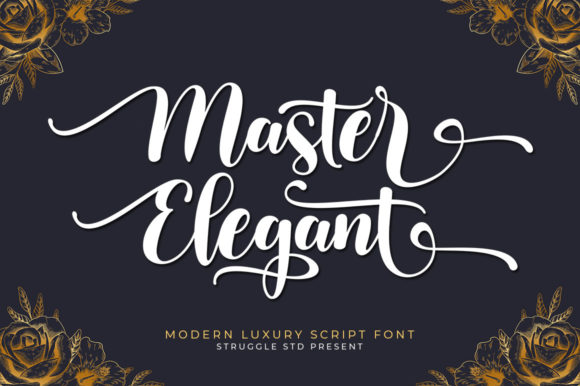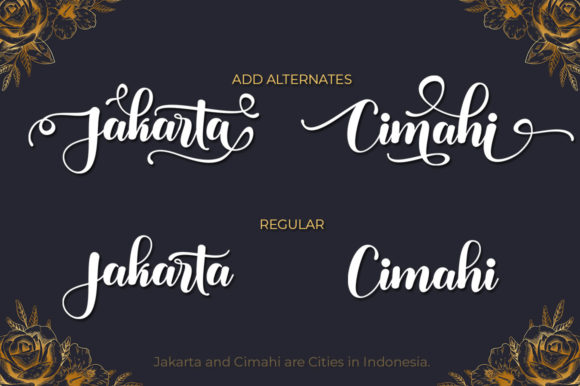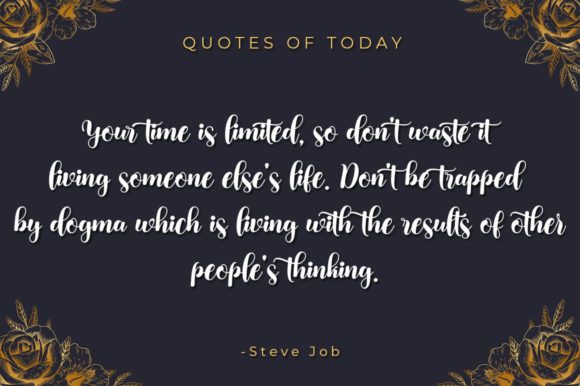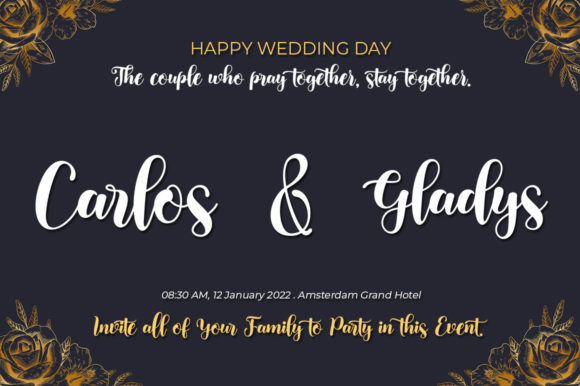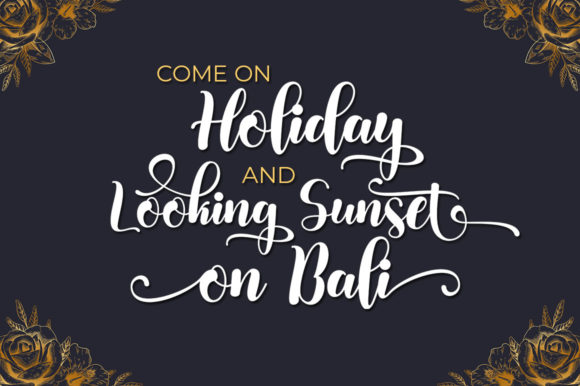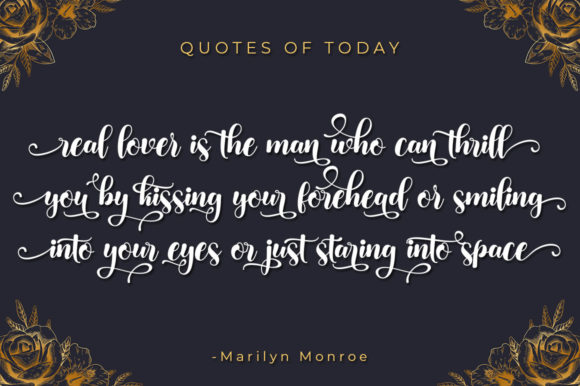
Master Elegant Font
Master Elegant is a unique and elegant handwritten font. It looks beautiful on a variety of designs requiring a personalized style, such as wedding invitations, thank you cards, weddings, greeting cards, logos and so on. Master Elegant is PUA encoded which means you can access all of the glyphs and swashes with ease!